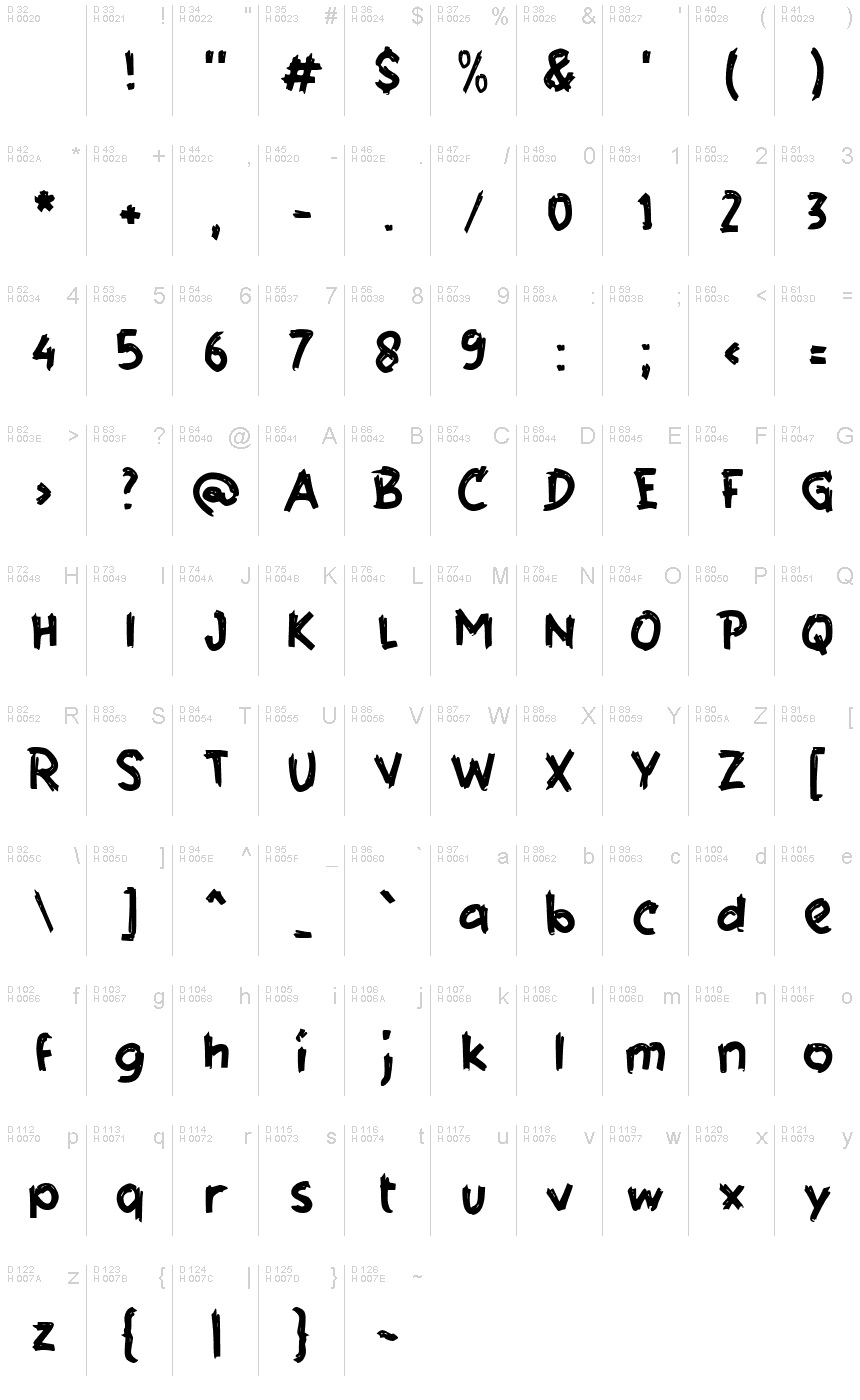
Forest Road
Forest Road, a captivating display font by wep, adds a touch of ruggedness to your creative projects.
Its eroded style conveys an authentic and weathered feel, perfect for vintage logos, adventurous book covers, or gritty movie posters. The bold weight of Forest Road evokes strength and confidence, making it ideal for outdoor sports branding or bold headlines that demand attention.
With Forest Road, bring a sense of adventure and allure to your designs with its unique eroded charm.